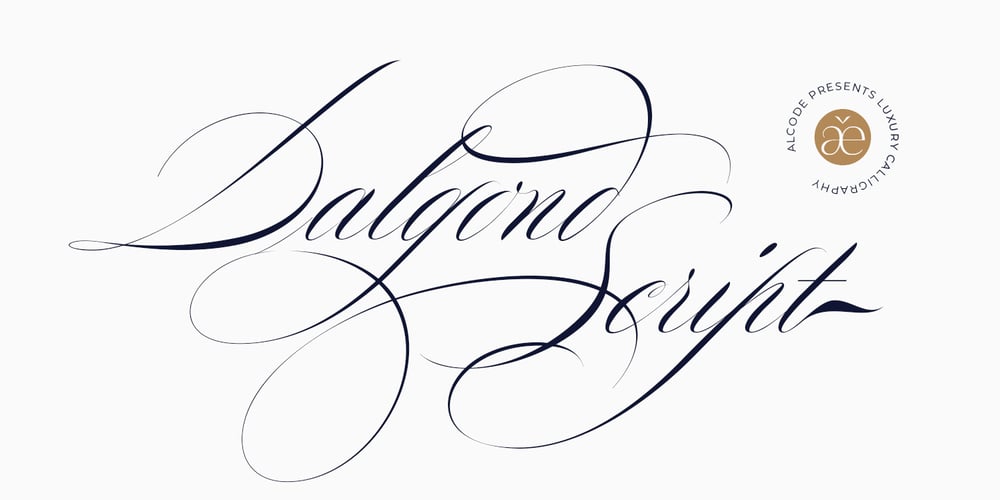
Dalgond Script
Dalgond Script font
Dalgond Script Font Family was designed by Sukjana Almunandar and published by Alcode. Dalgond Script contains 1 styles and family package options. Dalgond Script is a classic font, I built it with my relaxed hands. designing a classic font but having a modern element in it, which makes it particularly suitable for wedding media, book covers, greeting cards, logos, branding, business cards and certificates, in fact for any design work that requires a clasik, formal or luxurious.Try Dalgond Script, enjoy the richness of OpenType features and let her fun and elegant excitement make you happy and enhance your creativity! You can use this font very easily.Includes multilingual supportYour download will include OTF format files. If you do not have programs that support OpenType features like Adobe Illustrator and CorelDraw X Versions, you can access all alternative flying machines using Font Book (Mac) or Character Map (Windows)